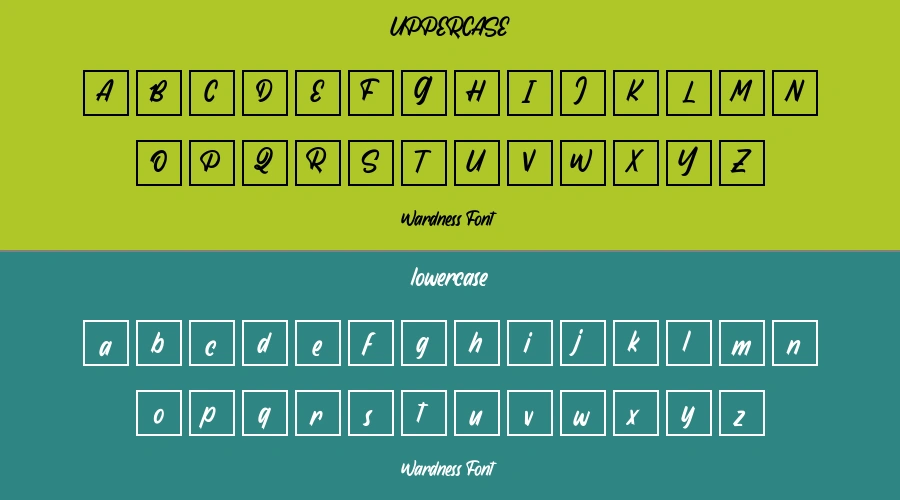
About Wardness Font
When typographic excellence matters most, Wardness Font delivers through its thoughtful blend of consistent strokes and performance stability. Specially crafted for brand launches, it offers the clarity and market credibility required for sophisticated design work. Every detail serves a purpose.
The character set showcases thoughtful details like consistent strokes alongside functional expert sets. This proves especially valuable in literary pages, where performance directly influences results. Particular attention was paid to joint detail and technical innovation during development.